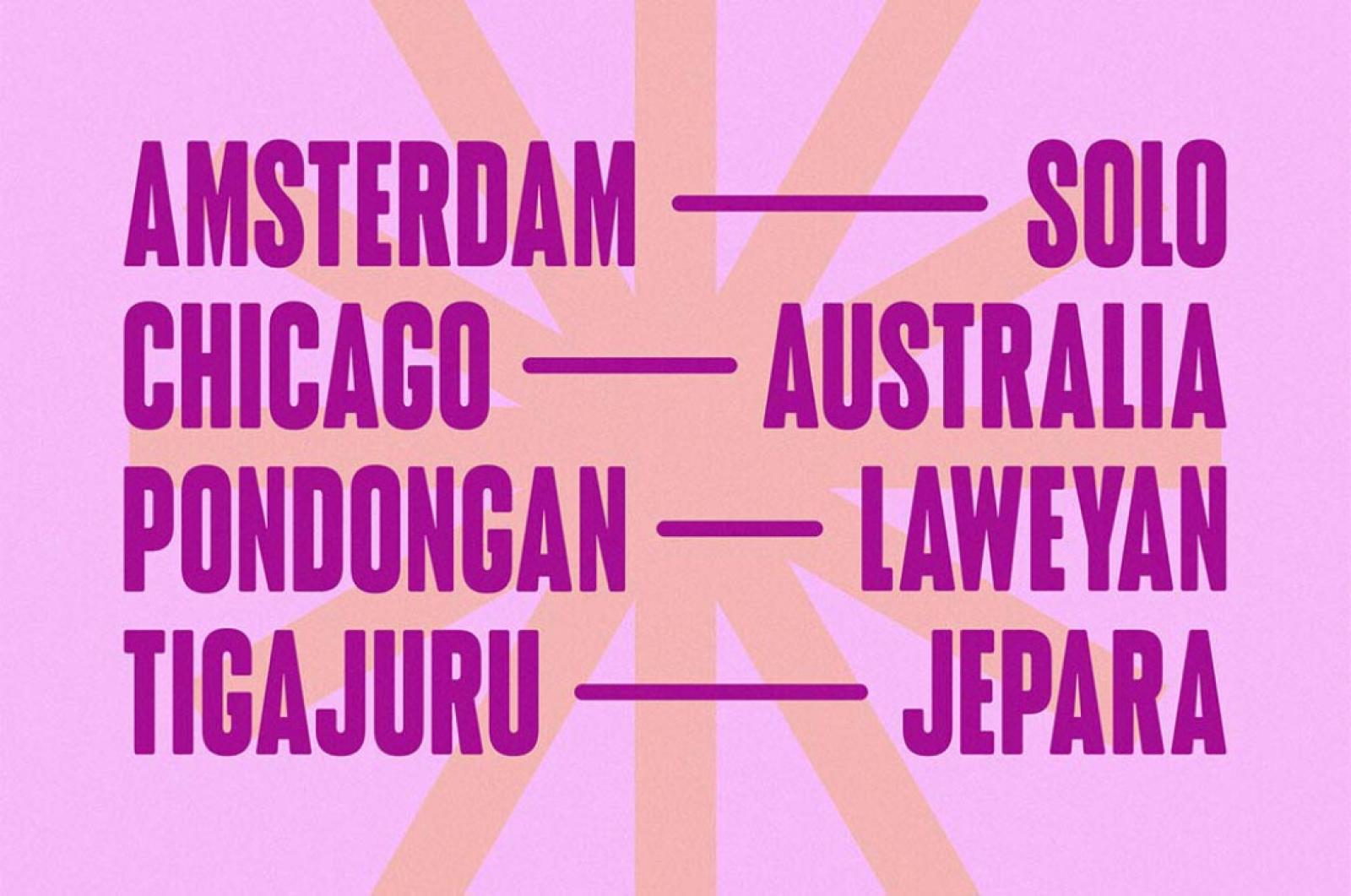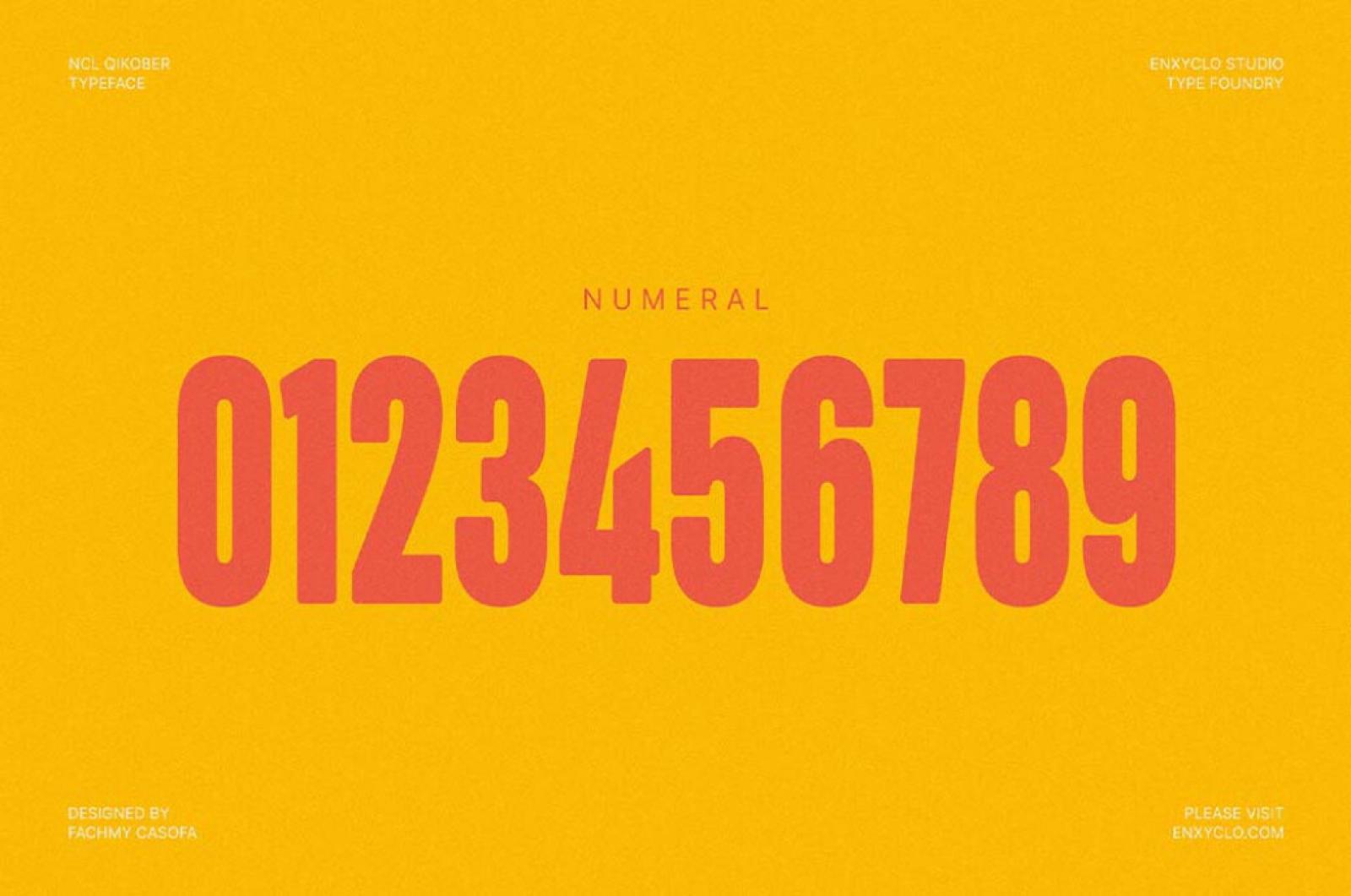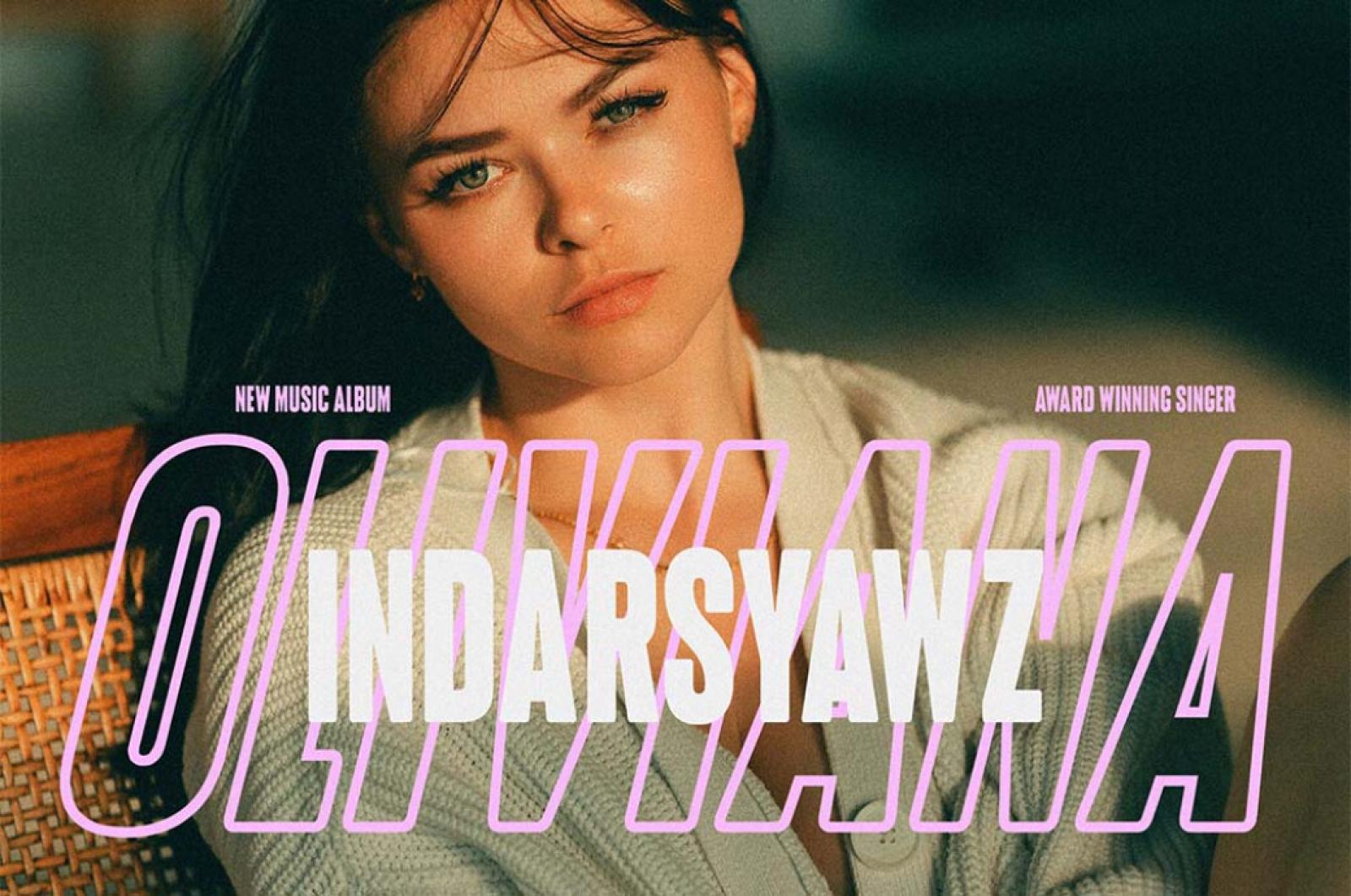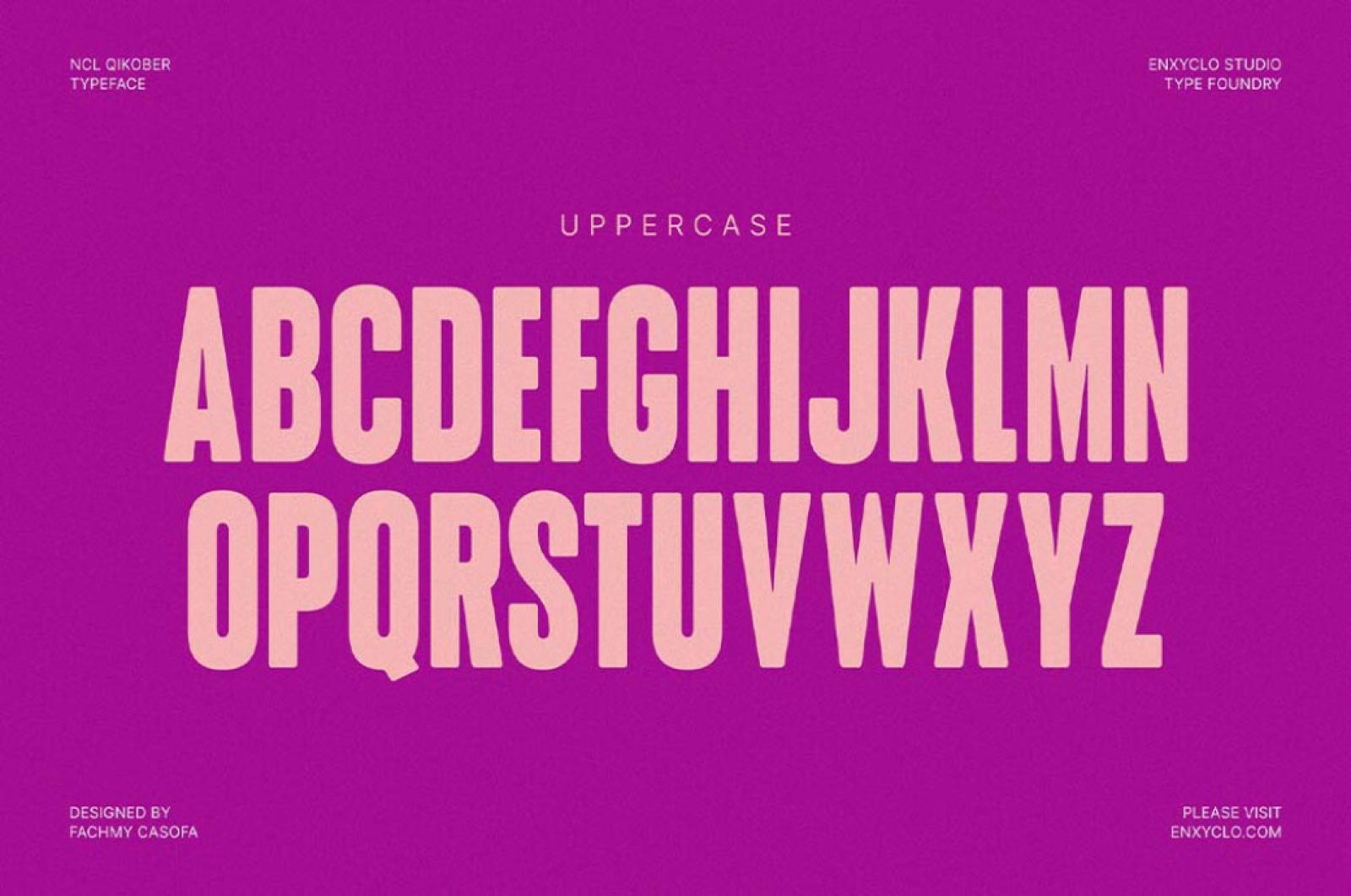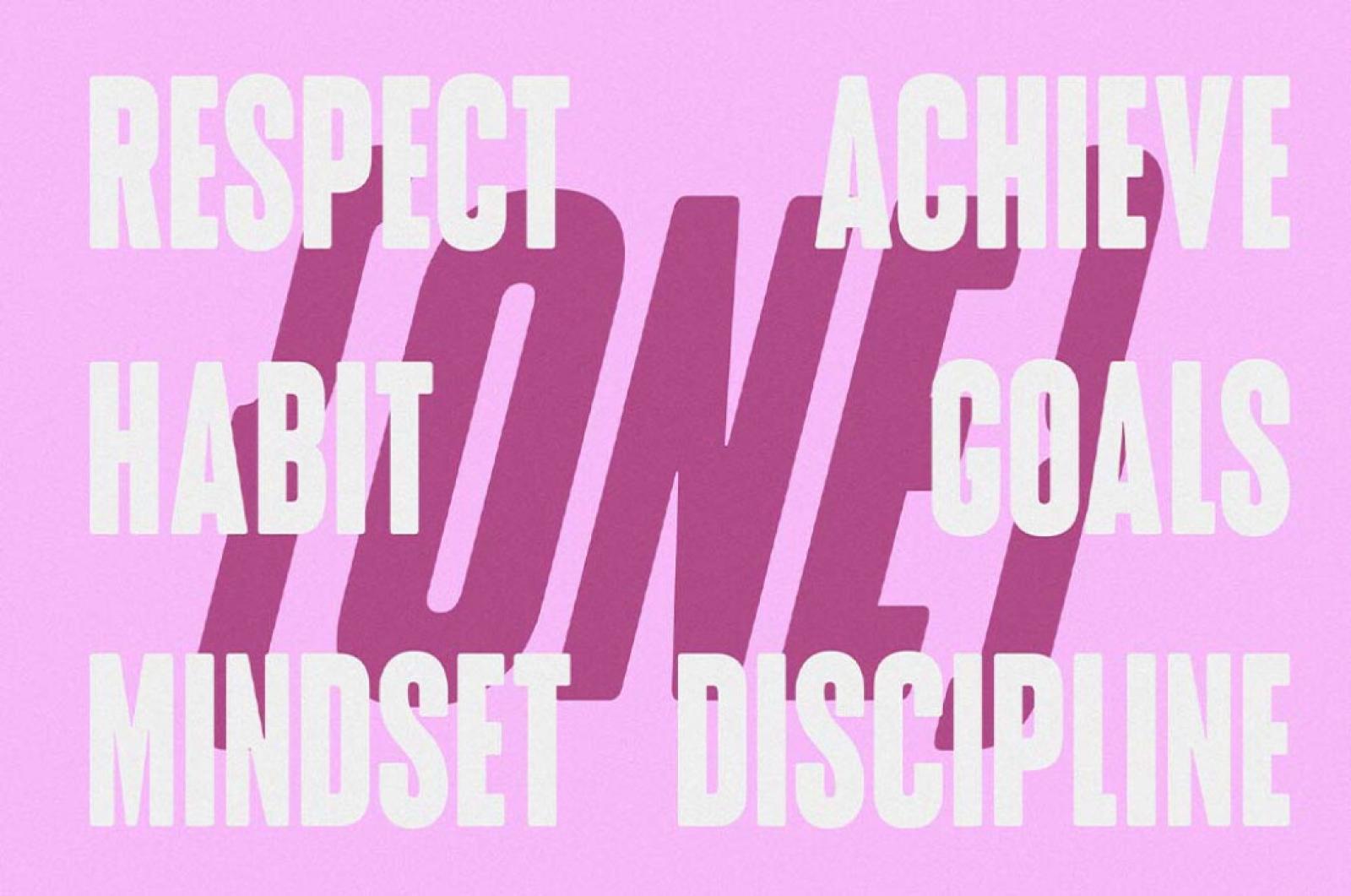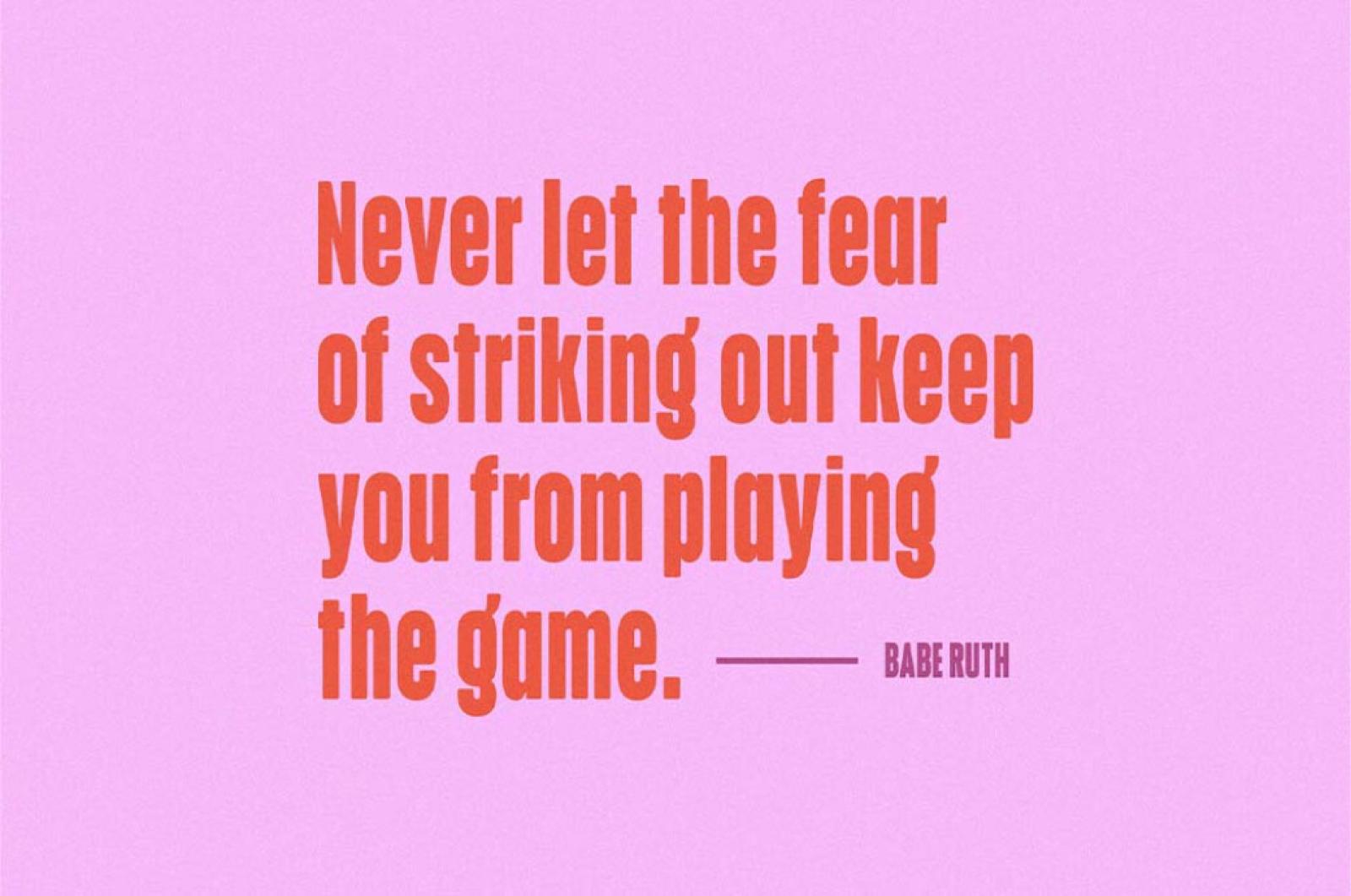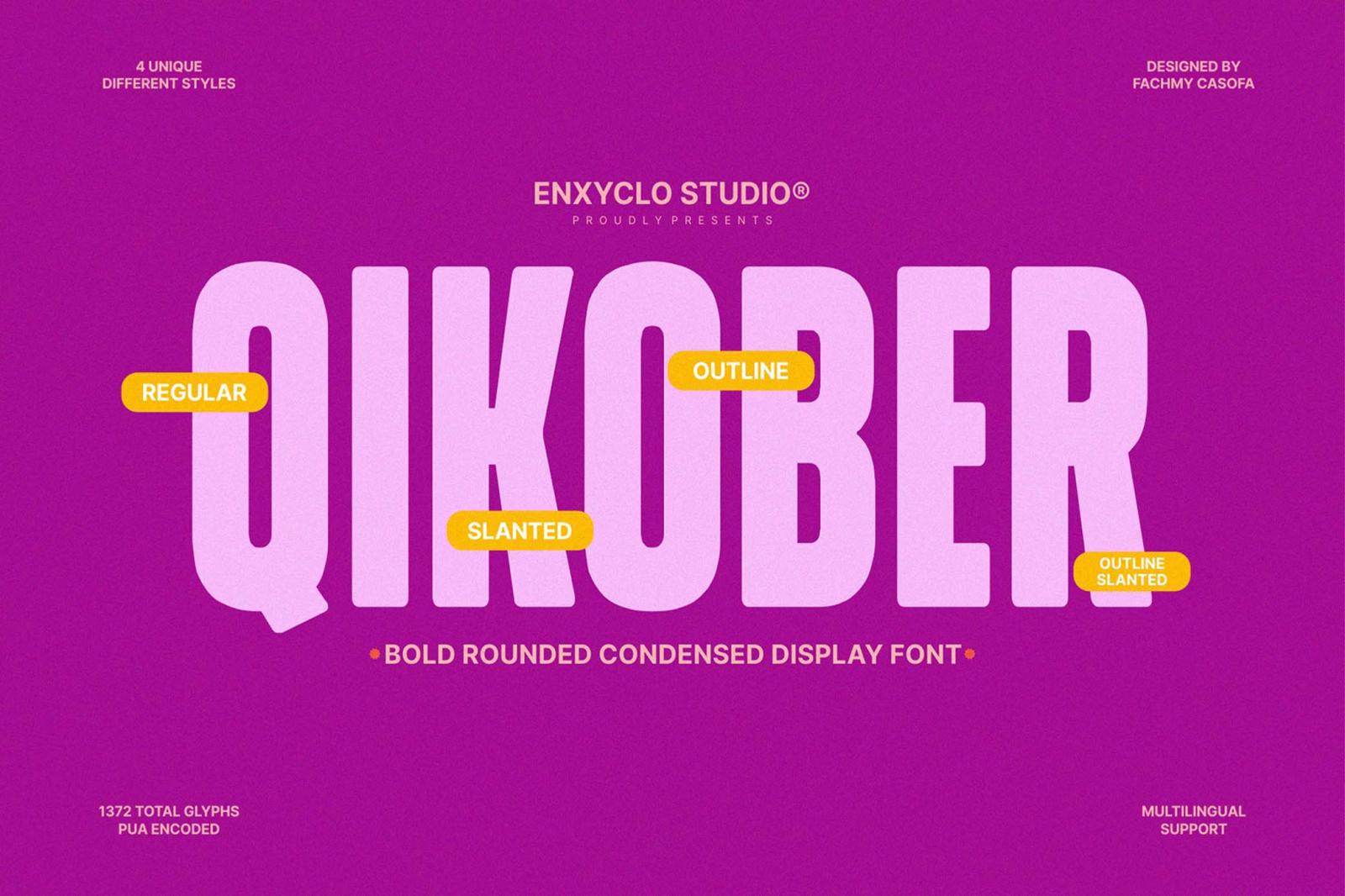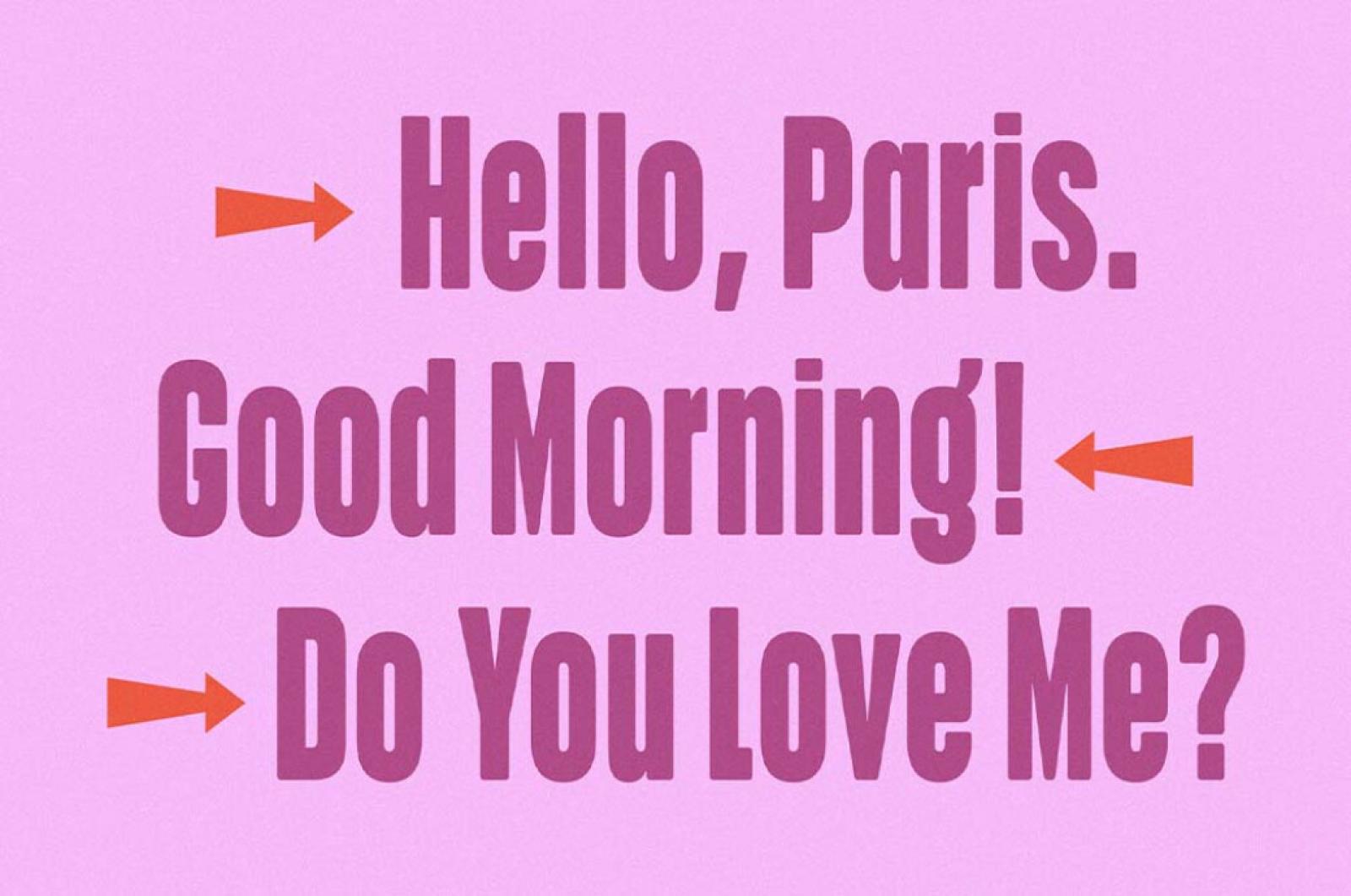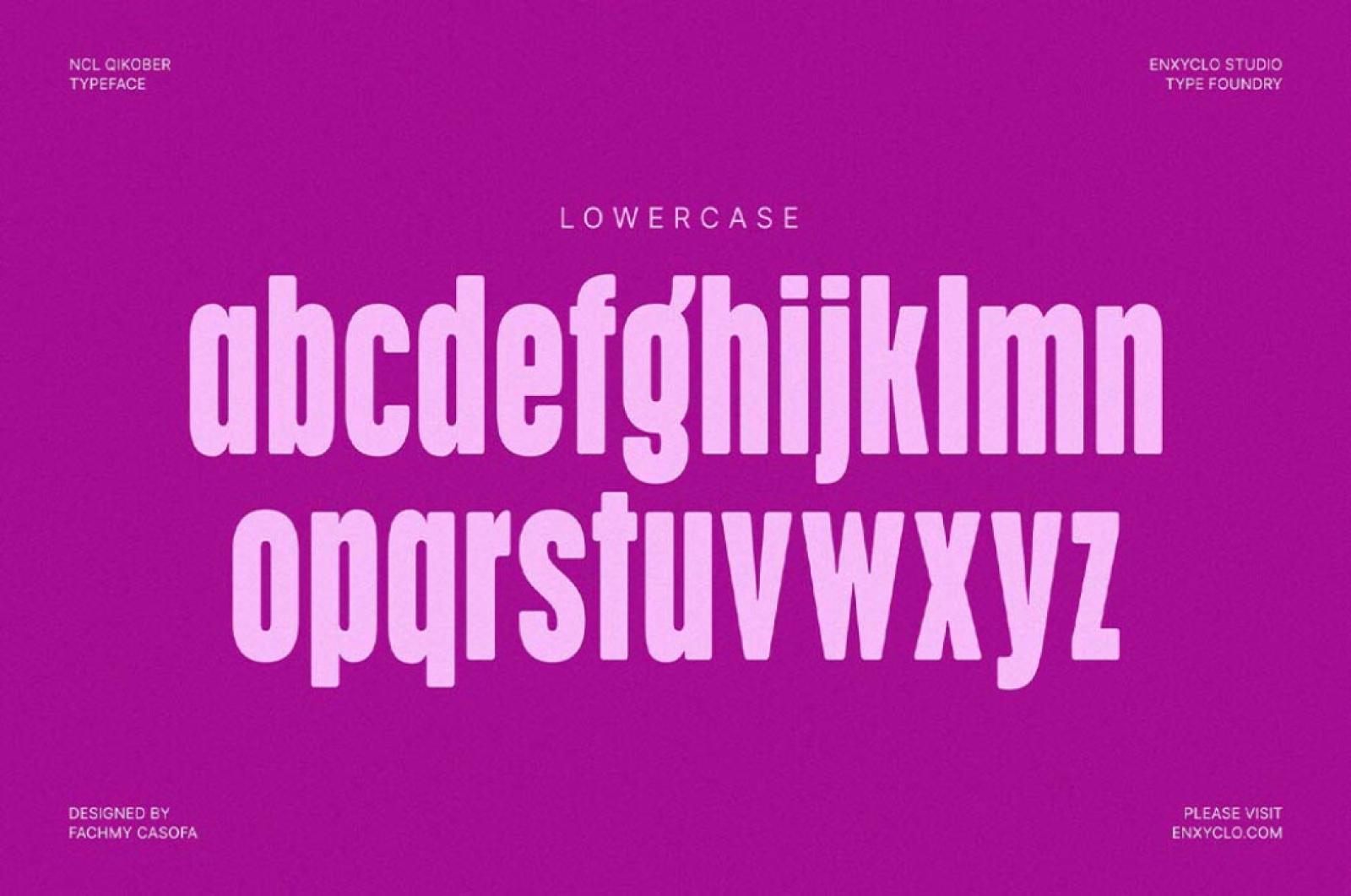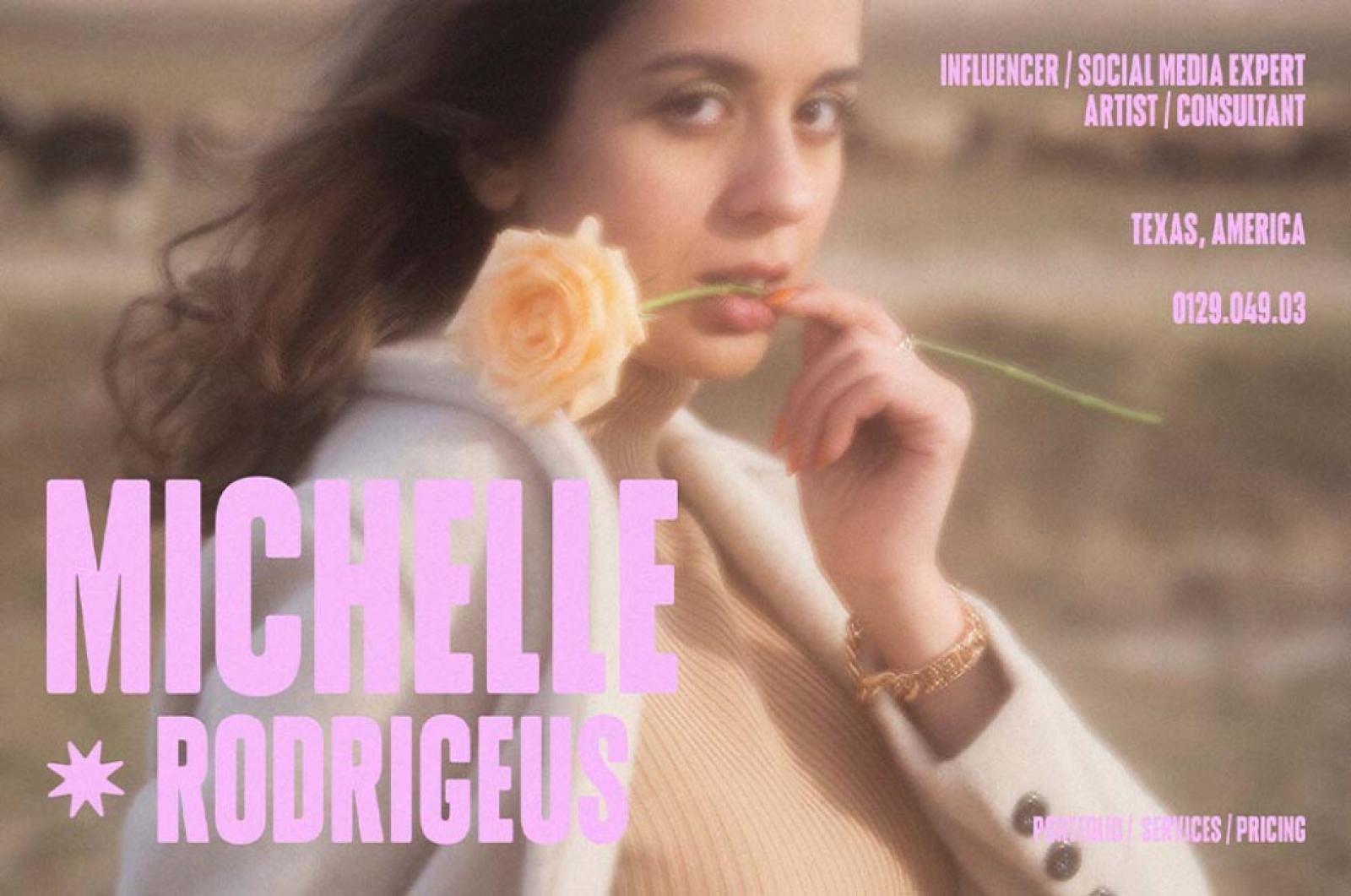
NCL QIKOBER — Condensed Font
Bold rounded fonts evoke feelings of reliability and modernity, conveying a sense of warmth and friendliness while maintaining a strong, confident presence. This one in particular has struck a perfect balance so we decided to bring this gem to you.
The font comes in four styles — regular, slanted, outline, and outline slanted that are inherently harmonious and can be mixed and matched to achieve perfect results. Each style includes a standard set of upper & lowercase, numeral, punctuation, and symbols as well as multilingual support. Crafted for large point sizes, NCL QIKOBER doesn't lose its charm when scaled down. Perfect for headlines, posters, branding, and logos, this font adds a touch of professionalism with a wink of playfulness.